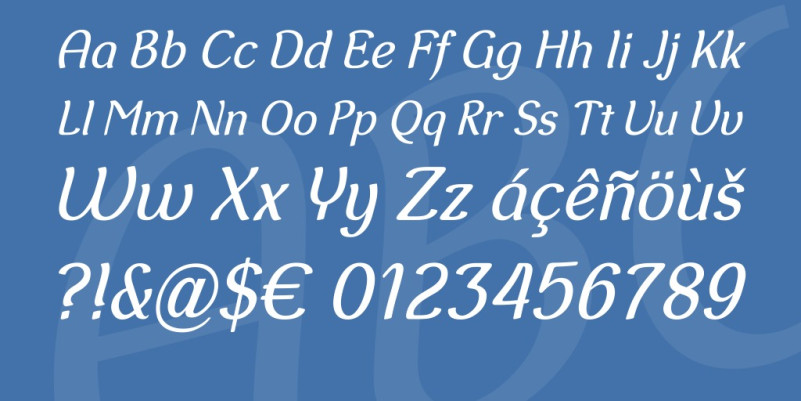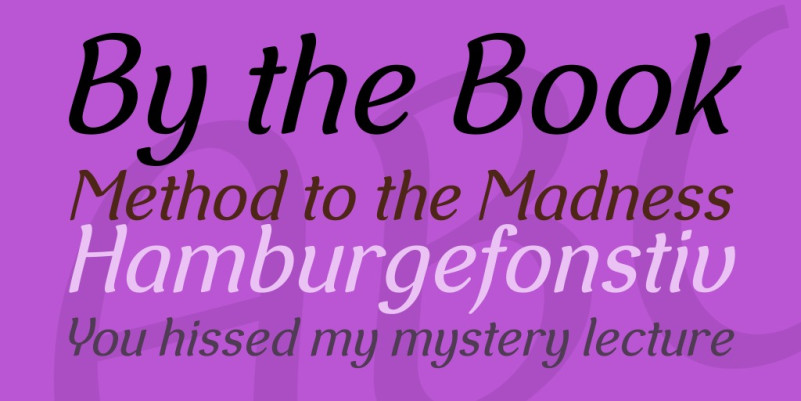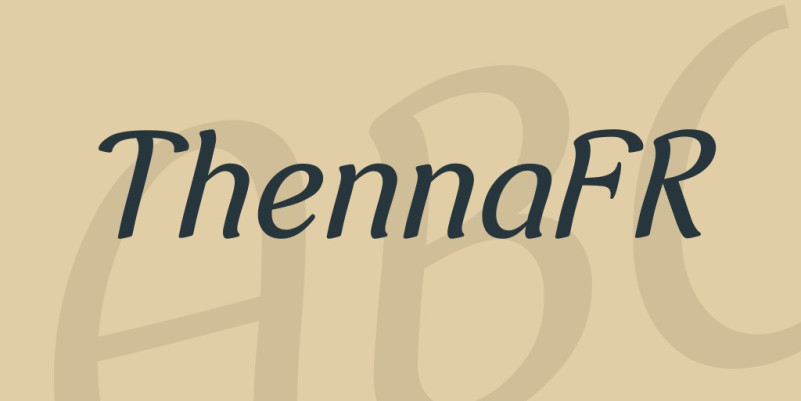
ThenaFR Display Font, is a classic display font, perfect for branding, logos, weddings, greeting cards, fashion, photo books, marketing ads, anything Whenever You want to look fancy but still casual.
ThennaFR Font
| Classification: | Display Fonts, Retro / Vintage Fonts |